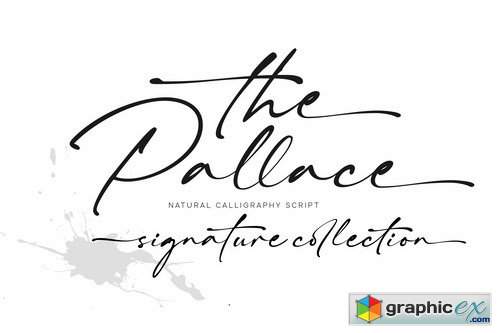
The Pallace
“The Pallace” feels equally charming and elegant. This stunning handwritten font is a stylish homage to classic calligraphy. It features a varying baseline, smooth lines, gorgeous glyphs and stunning alternates.